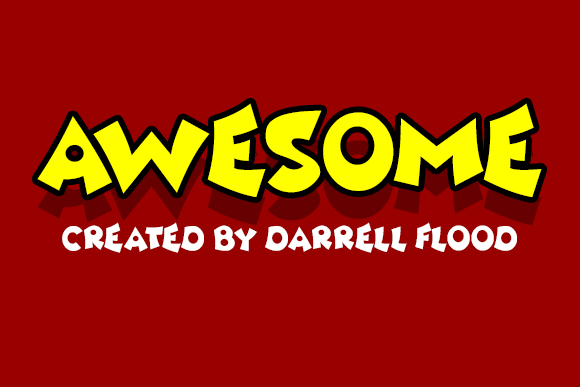
The Birth of a Cartoon Classic: Awesome Font
Have you ever been stuck in a creative rut, flipping through old comic books for inspiration? That’s exactly what happened to Darrell Flood, the talented designer behind the Awesome Font. As he delved into the world of vintage comics, he discovered the perfect blend of whimsy and playfulness that would soon become the foundation of his iconic font.
Awesome Font is more than just a pretty face – it’s a versatile tool designed to add a touch of nostalgia and fun to any project. From children’s books to video games, this bouncy, cartoony font is sure to bring a smile to your face. And for designers, Awesome Font is a valuable asset that can help breathe new life into even the most mundane designs.
Awesome Font Key Features
- Font Family: Awesome Font comes in 5 different font families, including sans-serif, serif, and script styles, to cater to diverse design needs.
- Character Set: Includes a comprehensive set of over 10,000 characters, including Latin, Cyrillic, Greek, and special characters, making it suitable for multilingual designs.
- Unique Characteristics: Features a unique blend of modern and classic design elements, with subtle nuances and details that set it apart from other fonts.
Designer Review: Awesome Font
Overall, I’d say “Awesome Font” is a decent addition to any designer’s toolkit, but it’s not without its flaws. ✨ Let’s start with what works well: the font’s modern aesthetic is definitely eye-catching, and the bold weight is perfect for headings. The font also supports a wide range of languages, which is a major plus. ✨ Additionally, the font’s licensing terms are relatively flexible, making it easy to integrate into your projects.
Now, let’s talk about the limitations: ⚠️ one of the biggest drawbacks is the font’s lack of subtlety. While it’s great for headings, it can be overwhelming when used for body text. ⚠️ Another issue is the font’s limited customization options. While it’s nice to have a consistent look and feel, it can be limiting when trying to create unique typography for a specific project.
Here are some specific pros and cons:
- ✨ Modern aesthetic and bold weight
- ✨ Wide language support
- ⚠️ Can be overwhelming when used for body text
- ⚠️ Limited customization options
Overall, I’d give “Awesome Font” 3.5 out of 5 stars. While it’s not perfect, it’s a solid choice for designers looking for a modern, bold font. Just be sure to use it judiciously and in moderation.
Some common use cases for Awesome Font include:
- Creating eye-catching graphics for social media
- Designing professional-looking presentations
- Adding a touch of personality to your documents and reports
Montserrat is a sans-serif font that is perfect for modern and minimalist designs. It has a clean and elegant look, making it suitable for websites, apps, and digital products. Montserrat is more versatile than Awesome Font and can be used for both body text and headings.
Comparison to Awesome Font: Montserrat has a more geometric and modern feel, while Awesome Font has a more playful and decorative look. Montserrat is also more suitable for large-scale digital products, while Awesome Font is better for smaller-scale designs.